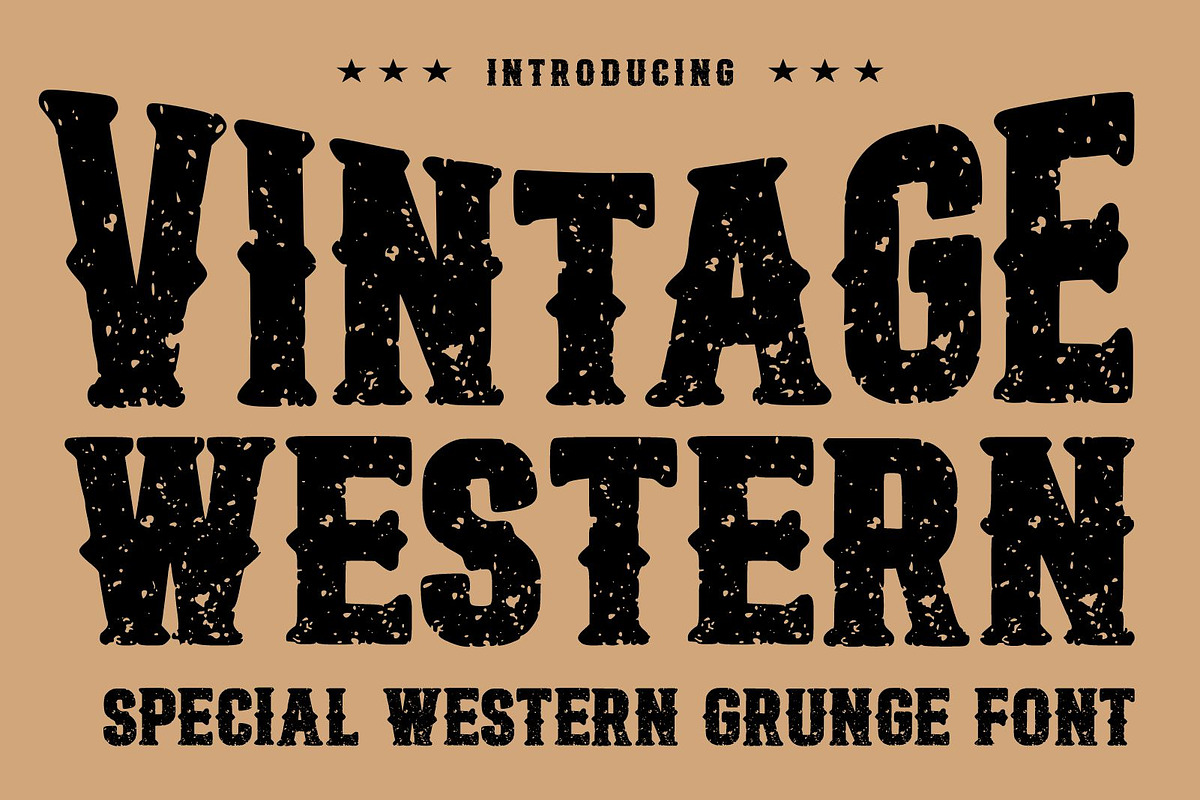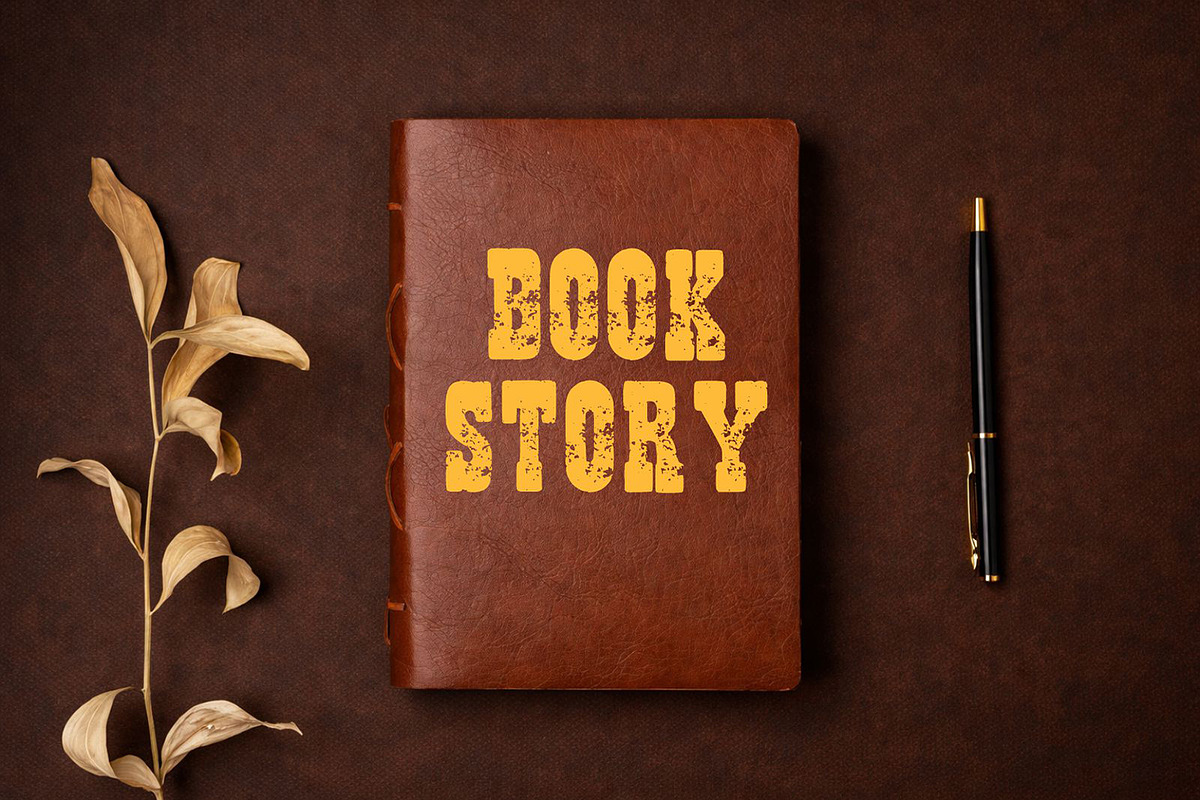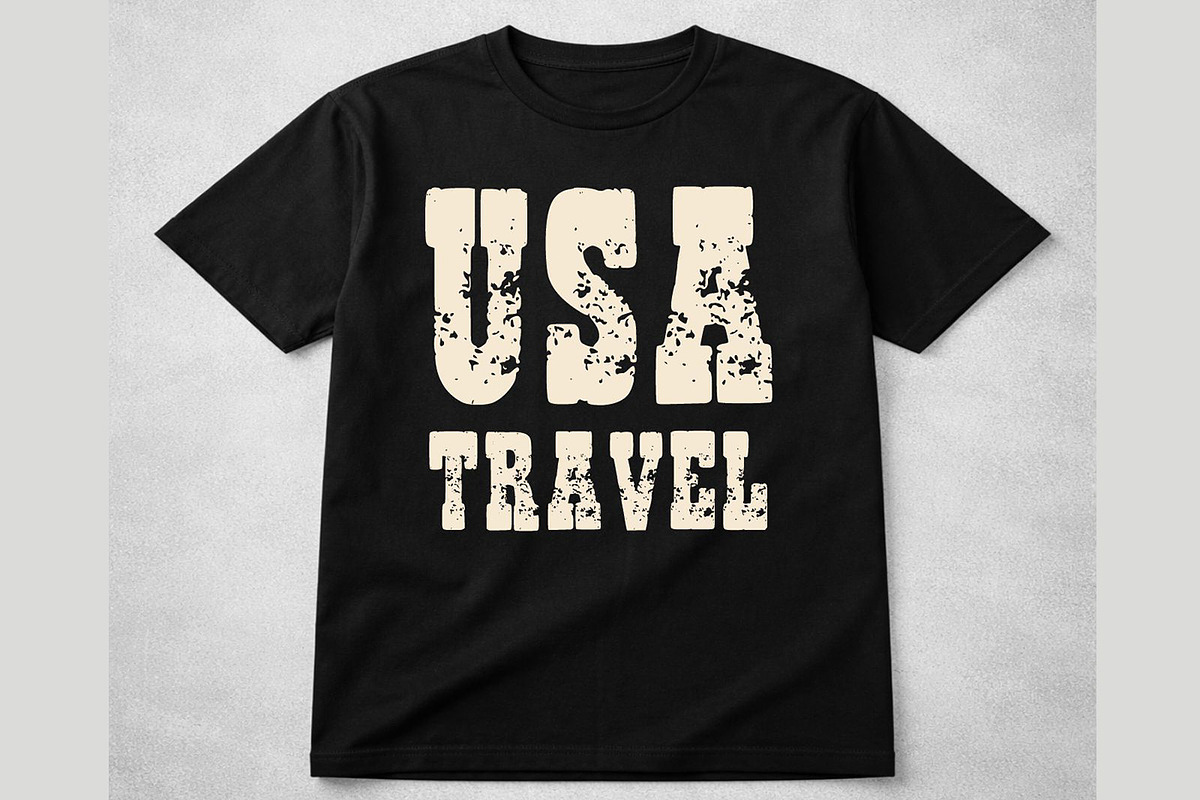
Vintage Western Grunge Font
Vintage Western Grunge Font is a bold and rugged display typeface inspired by classic cowboy and old western typography. Featuring distressed textures and strong vintage character shapes, this font captures the authentic spirit of western signage, retro posters, and rustic branding. Perfect for posters, logos, apparel designs, packaging, labels, and vintage-themed projects. Its grunge texture adds a worn, authentic feel that makes designs look bold, classic, and timeless.